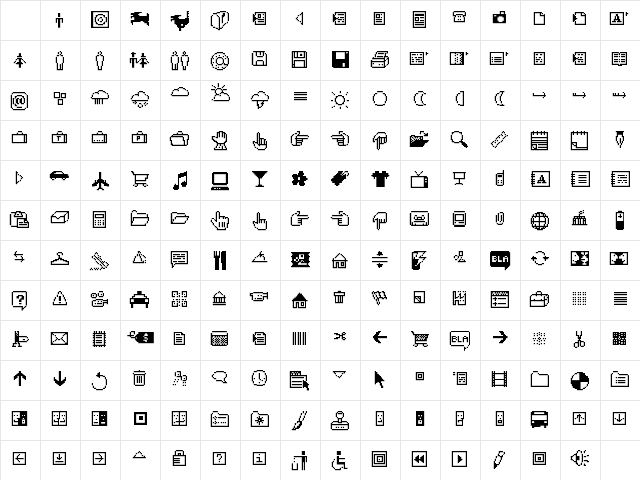
Complete CD-Icons Regular glyph index. Displaying only characters natively supported by CD-Icons Regular font.
CD-Icons is a composed and adaptable typeface that performs quietly and consistently across a wide range of design contexts.
Pro Tip: Use CD-Icons in both headline and body roles to test its range before committing to a single application.